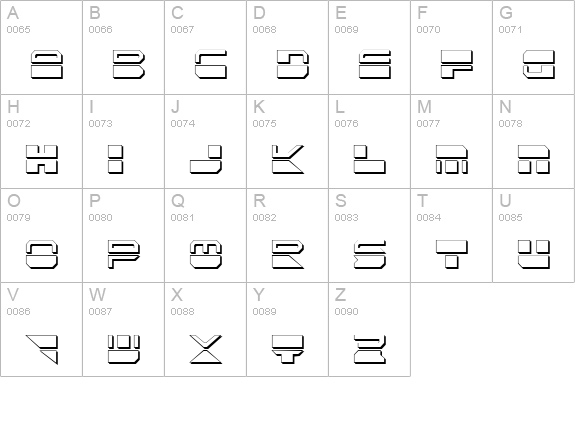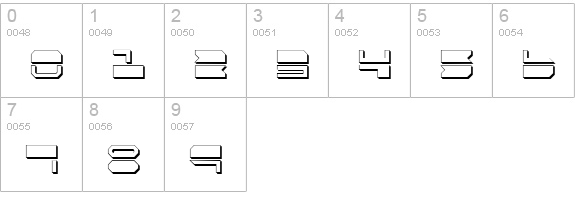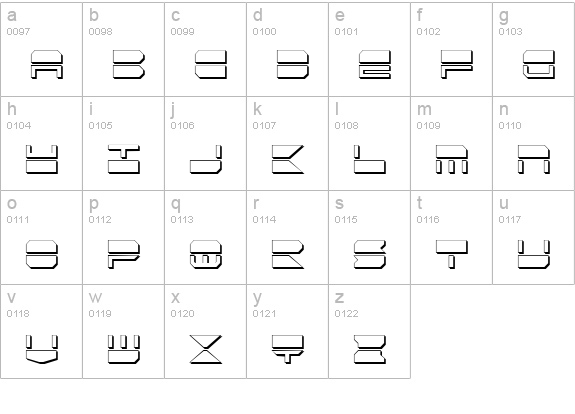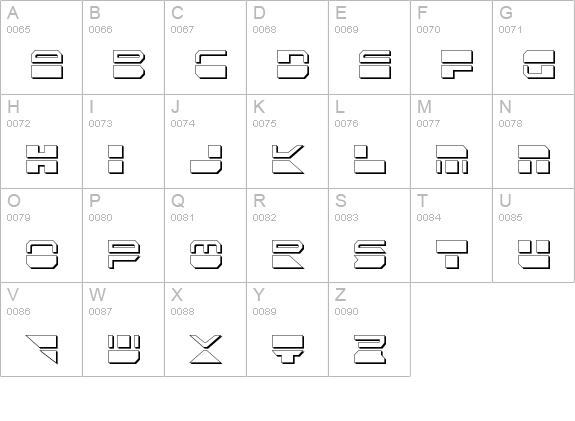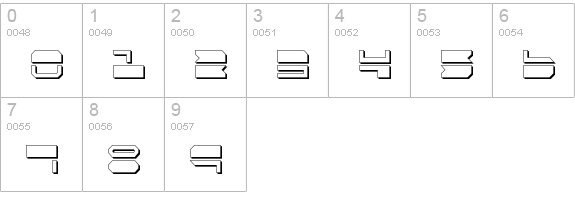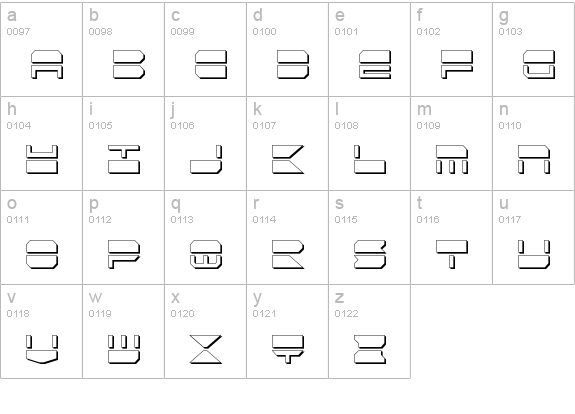
Quickmark Condensed Shadow is a distinctive, condensed-width variant in the Quickmark typeface family \xE2\x80\x94 well suited to design and typography projects.
Quickmark Condensed Shadow is a sleek and modern font that exudes elegance and sophistication. Its condensed style gives it a unique and contemporary look, making it perfect for a wide range of design projects. The shadow effect adds depth and dimension to the text, creating a striking visual impact. This versatile font is ideal for use in headlines, logos, posters, and more. Its clean lines and sharp edges make it easy to read while still maintaining a sense of style. Whether you're designing a sleek corporate brochure or a trendy social media post, Quickmark Condensed Shadow is sure to make a statement. The best part? Quickmark Condensed Shadow is available for free download at FontsMarket.com. This means you can easily access this stylish font and use it in your projects without any cost. Don't miss out on the opportunity to elevate your designs with Quickmark Condensed Shadow today!